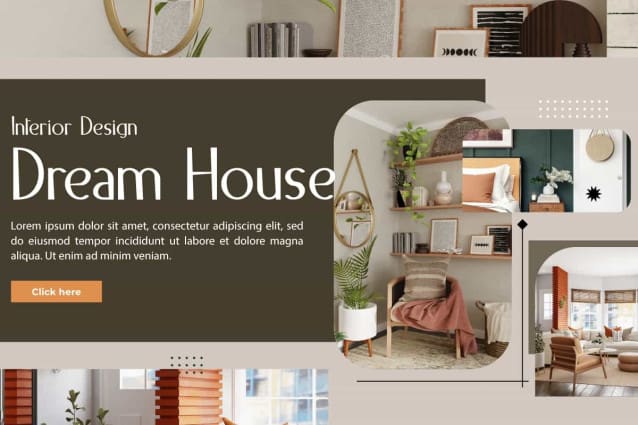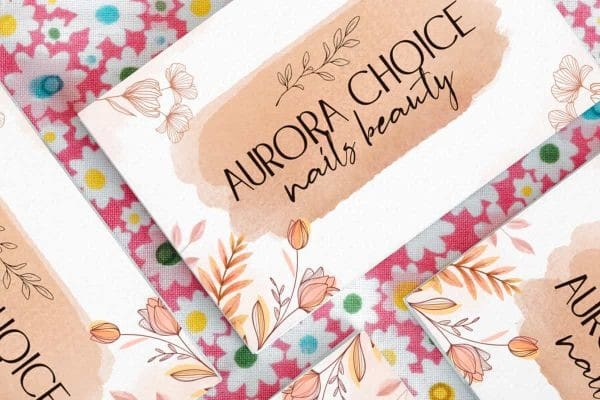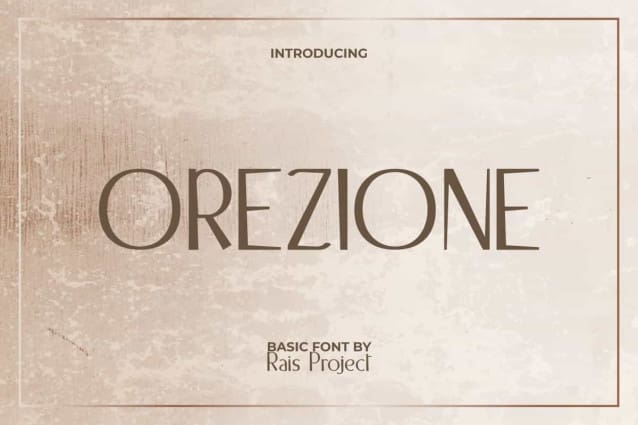
Orezione Font
Orezione Font is a unique classic sophisticated sans display font. This font is made with a unique combination of line shapes and is suitable for pairing with other types of fonts. It will be good for any designs, such as advertisement, brand image, business card, cover, custom design, flyer, invitation, label, menu, poster, product packaging, quote, signage, website page, and more!
Orezione Font includes a full set of Uppercase and Lowercase Letters, Numerals, and large range of Punctuation. This modern font will be suitable for various industries, such as accessories, advertising, cafe, crafting, event or wedding organizer, fashion, florist, marketing, movie, printing, publishing, restaurant, etc.